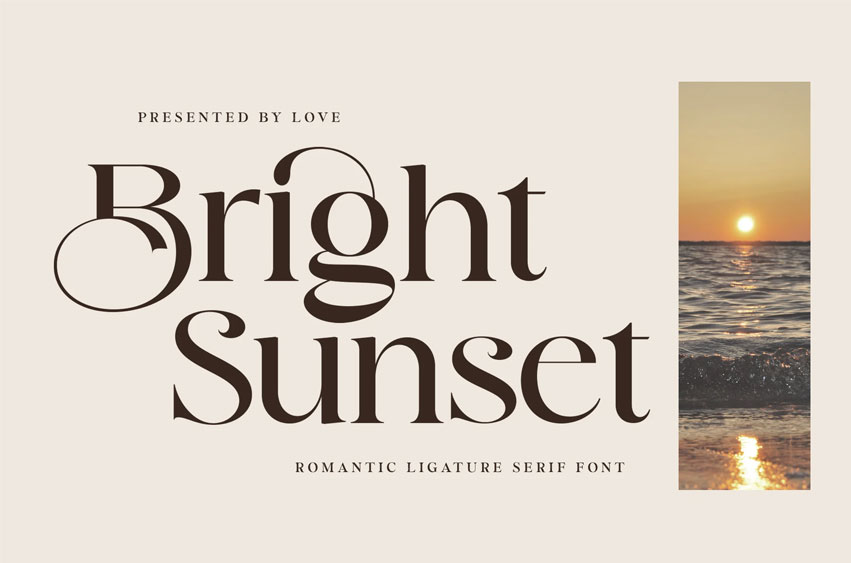
Bright Sunset Font is a romantic serif font created with joy and love. This font makes a harmonious combination for your modern and classic layouts.
Perfect for any luxury design, like a hotel logo, restaurant menu, restaurant poster, website, wedding invitation, and many others.